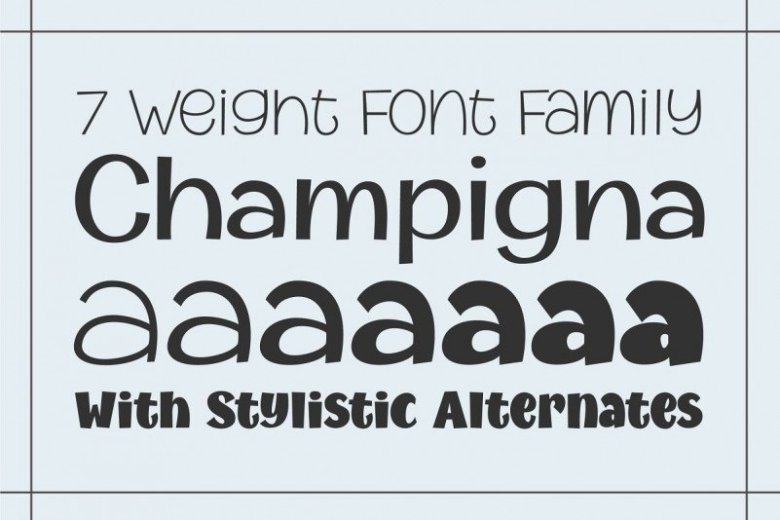
Champigna Font Family
Champigna Comic – is a modern sans serif with 7 weights typeface. A versatile, modern, condensed font family, perfect for creating powerful, beautiful text. Use this font for your new project! It is designed and shared by Royaltype. This is a new cool comic font family!, named as Champigna Font a ficus species. This font was carefully crafted with clean node. Available in seven weight variation, so you can enjoy design a page just with a font family. You could use the bold weights for loud, boisterous designs. Mix it with a lightweight to create a perfect harmony of masculine and feminine.